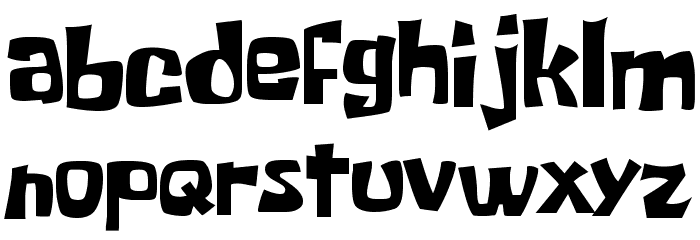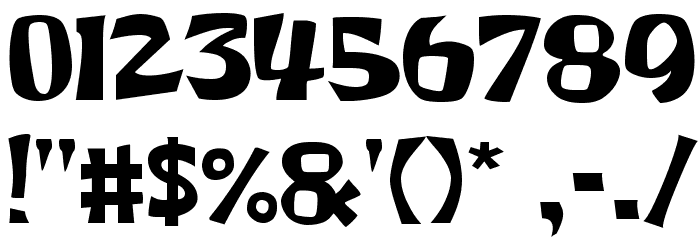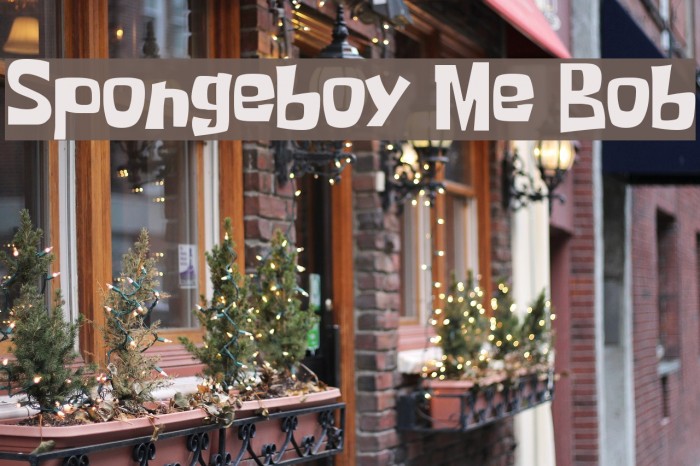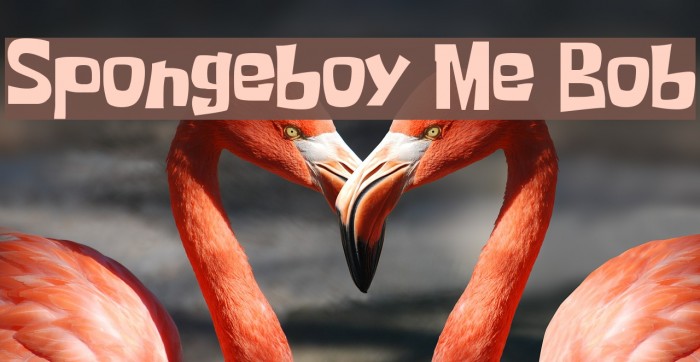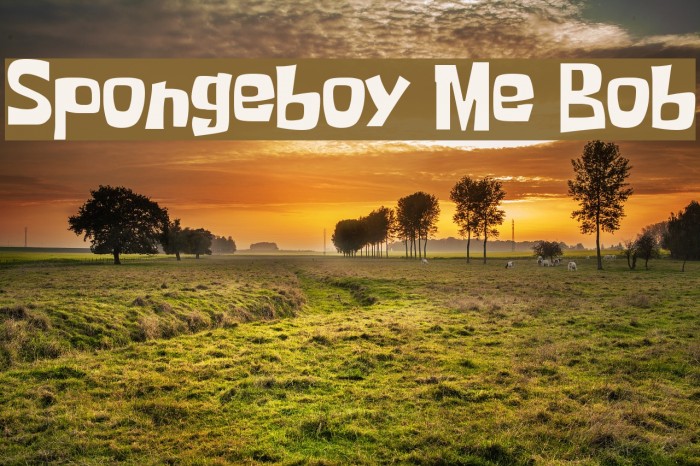
Spongeboy Me Bob Font
This font features a playful and whimsical design, characterized by its irregular and uneven letterforms that give it a quirky and fun appearance. The uppercase and lowercase letters both exhibit a unique, hand-drawn style with varying stroke widths, adding to its dynamic and lively feel. The numbers and special characters maintain this playful aesthetic, making the font suitable for creative and informal applications. Its bold and slightly distorted shapes evoke a sense of movement and energy, perfect for capturing attention and conveying a sense of fun.
A playful, hand-drawn font with irregular, bold letterforms.
- Proposed Projects: Ideal for children's book covers, cartoon titles, playful branding, and creative posters.
- Overall Style: Playful, Whimsical